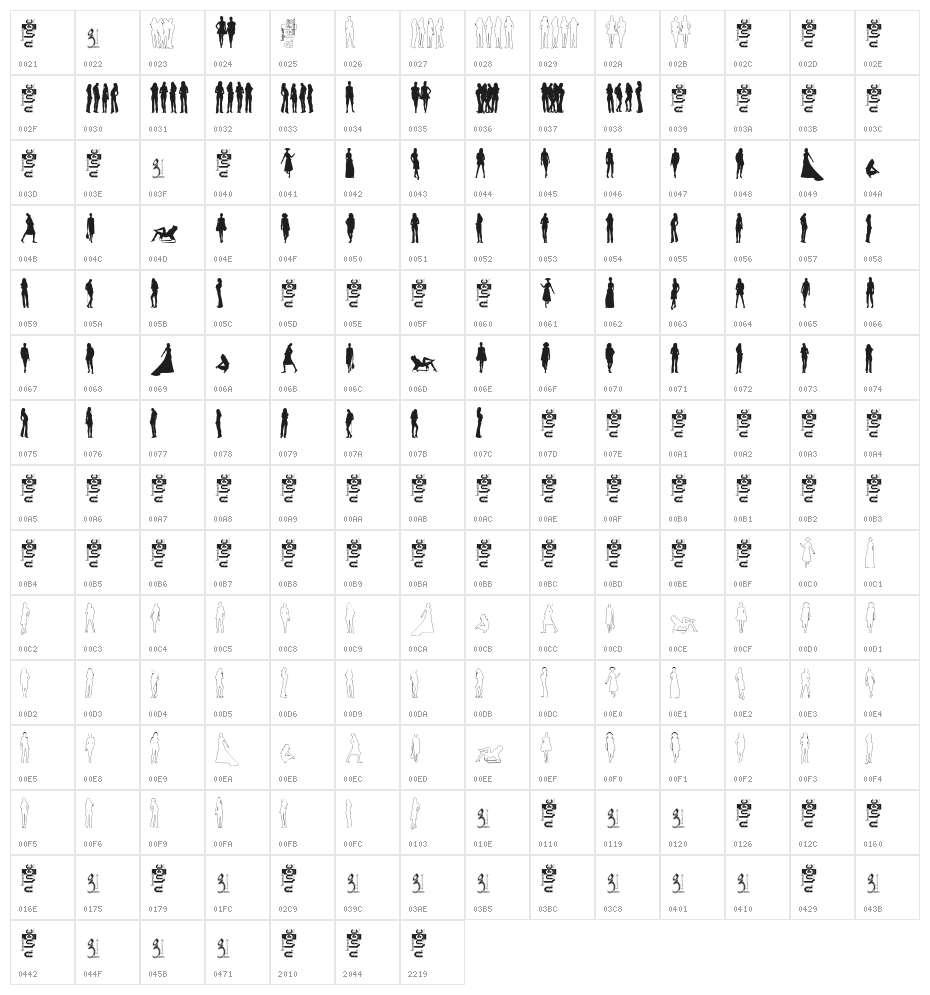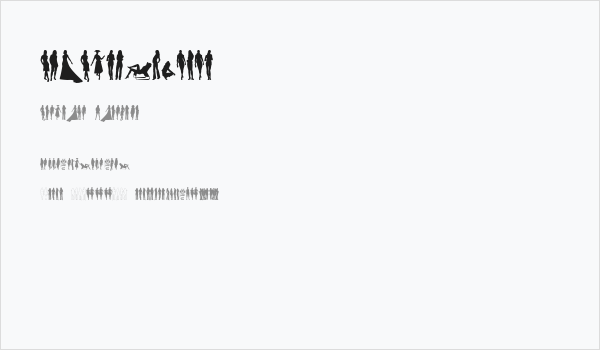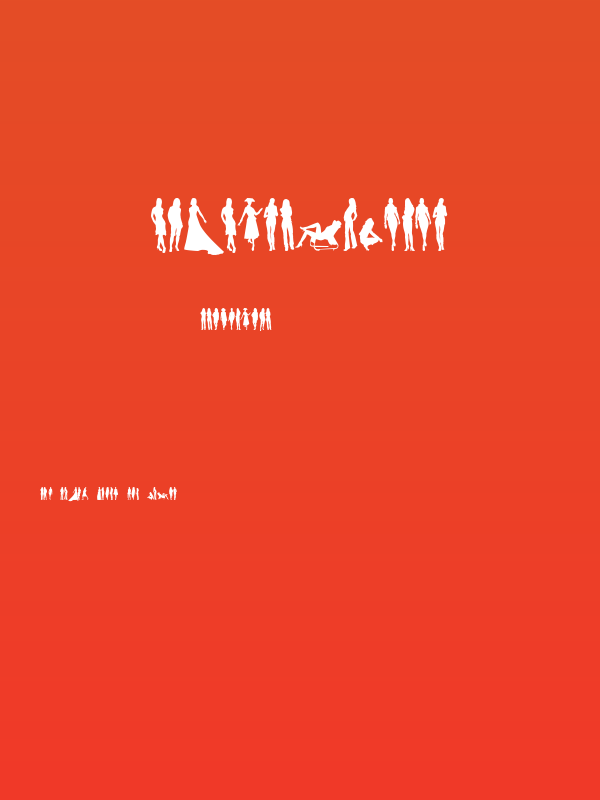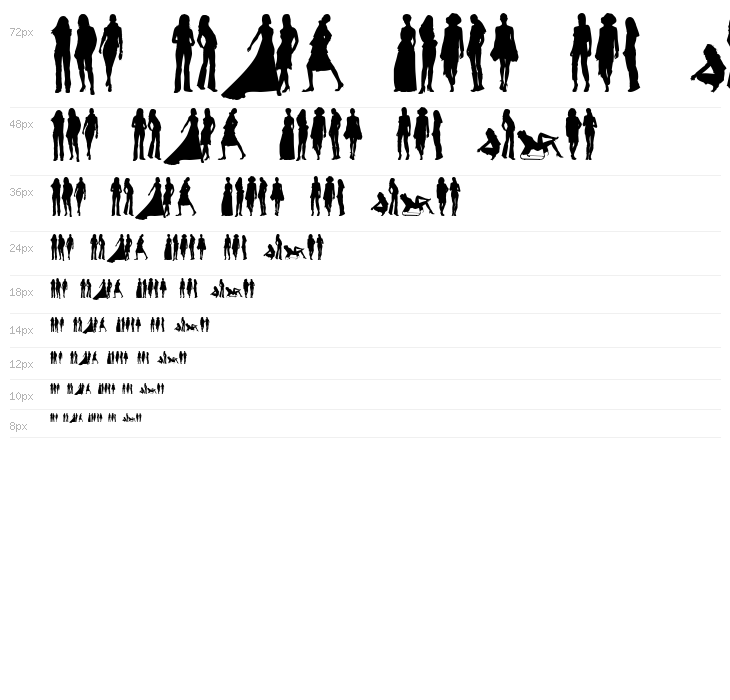
CHICASyMUJERES Font
CHICASyMUJERES Description
A decorative display typeface composed of silhouettes of women in various poses, with each character represented by a unique figure. The font is highly illustrative and non-traditional, focusing on visual impact rather than legibility.
| Overall Style | Decorative, Artistic, Thematic |
| Use Case | Logos, Headlines, Posters, Themed Graphics |
| Proposed Projects | Fashion branding, event posters, magazine covers, creative advertisements, themed invitations. |